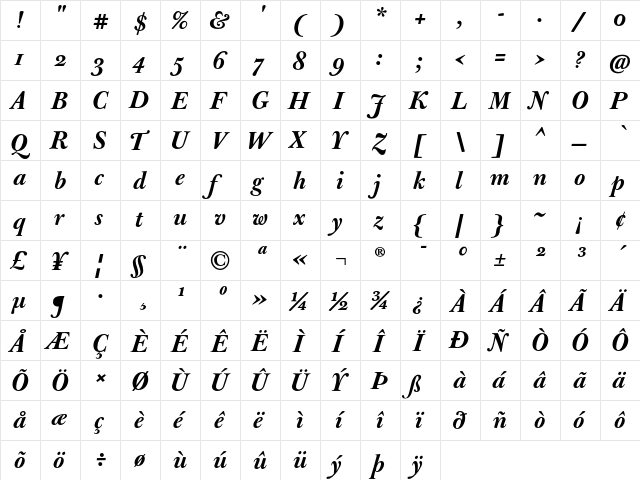
J Baskerville Bold Italic Font Preview
Design Context for J Baskerville Typeface
J Baskerville offers clean, dependable letterforms without strong stylistic allegiance, making it a practical choice for designers who need flexibility. Its italic angle brings a sense of urgency and motion to the letterforms. The heavy weight commands attention and anchors typographic hierarchies.
Pro Tip: Try J Baskerville for annotation and caption copy alongside an upright companion — the contrast in angle creates a dynamic but ordered typographic system.